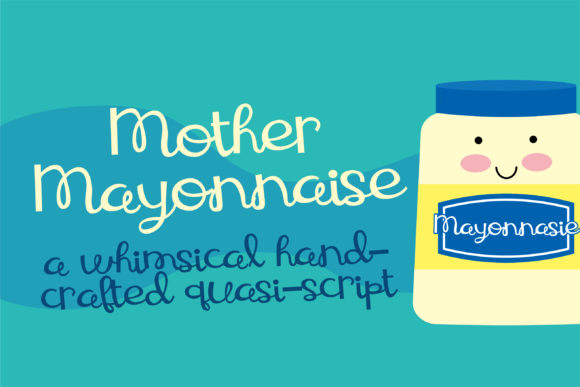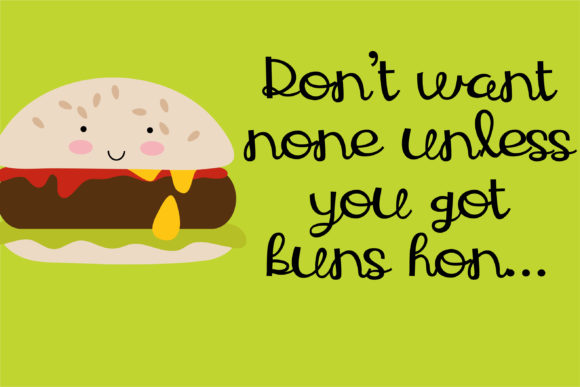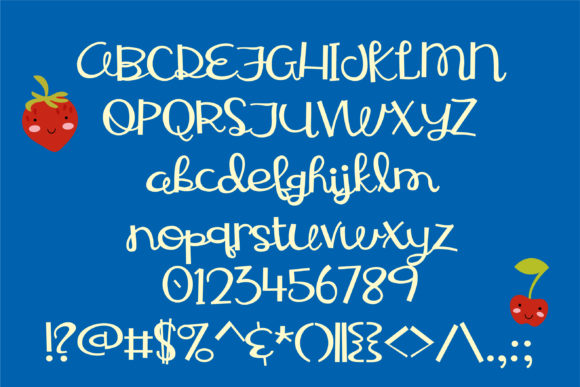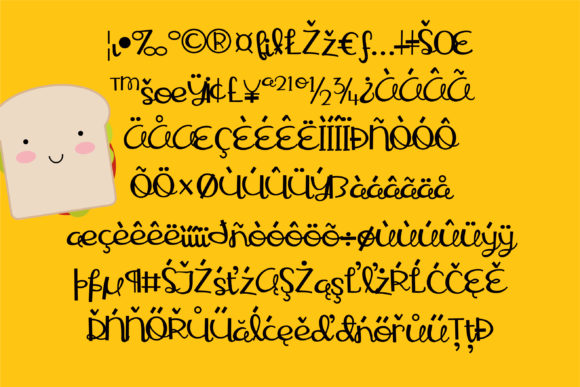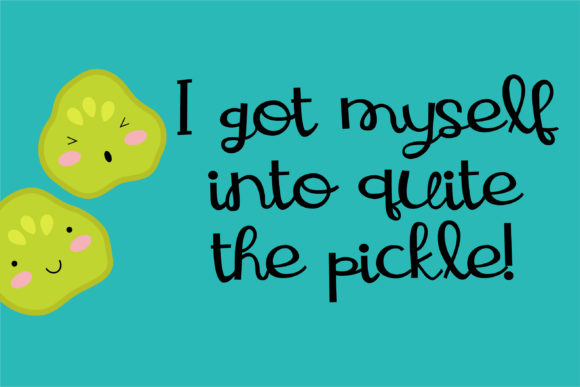
Mother Mayonnaise Font
About Mother Mayonnaise Font
This hand-crafted script has a casual feel to it. It’s great to add a home-made touch to projects. Pair it with her sister font:  Mother May.